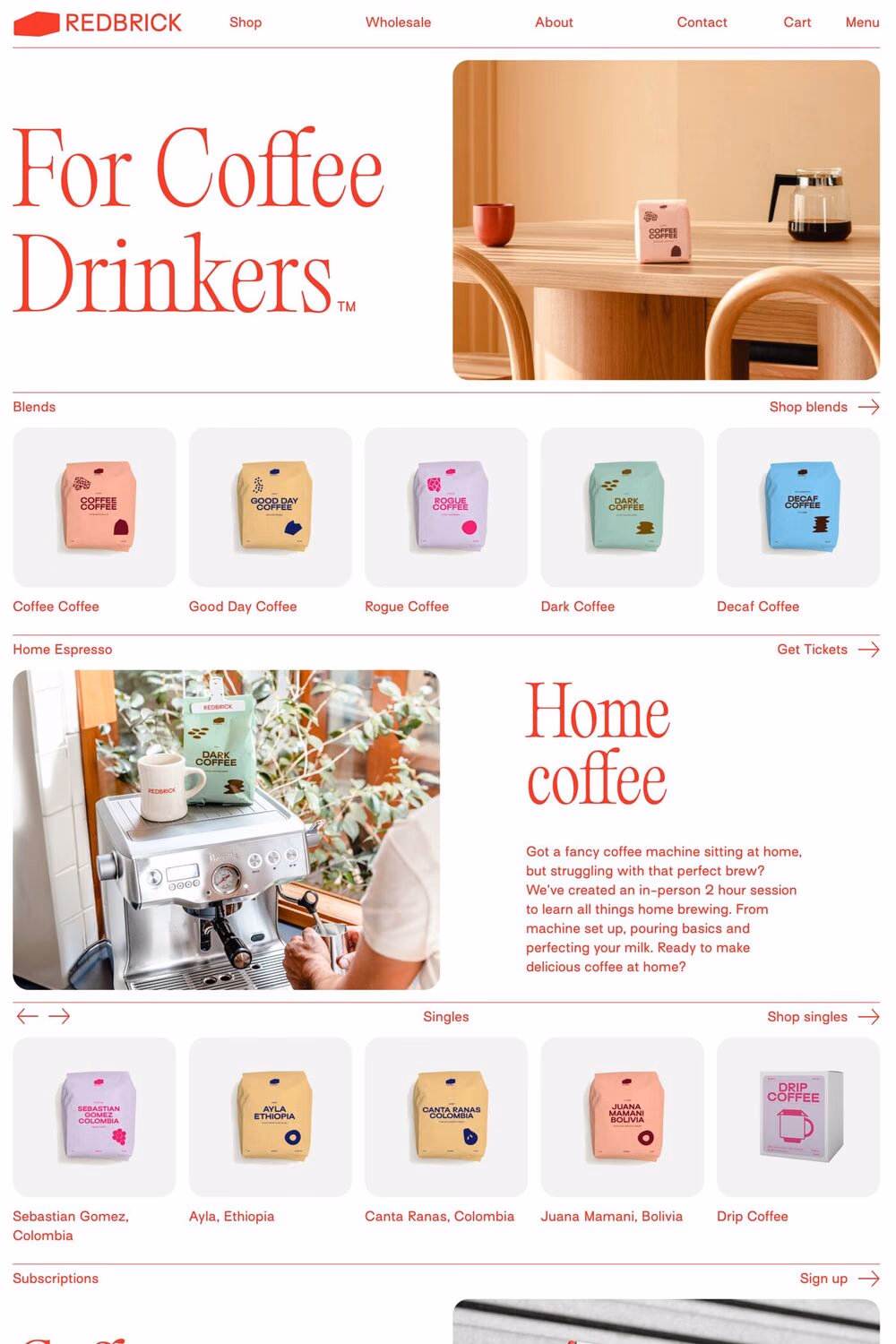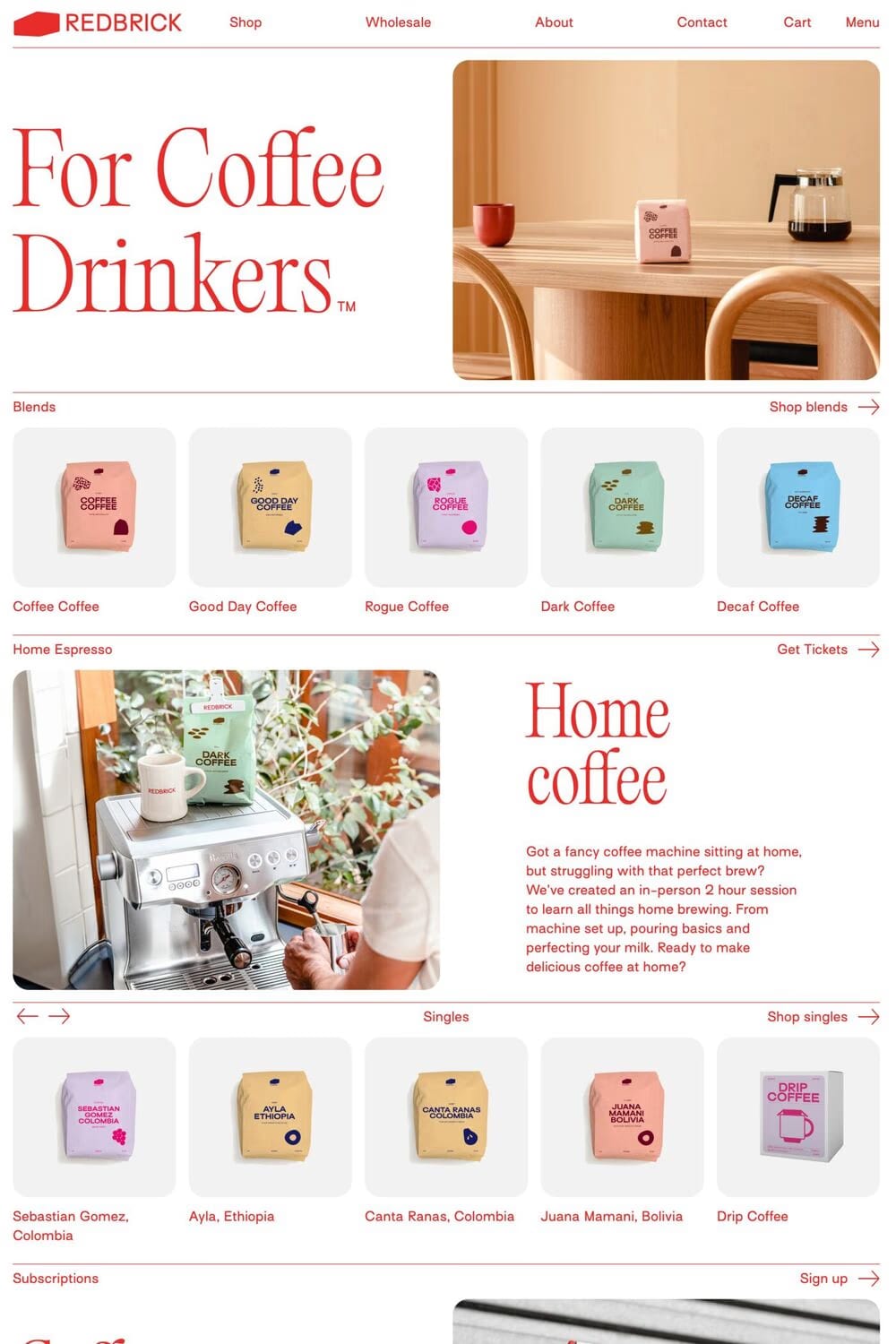
Surt is a sans-serif typeface from Blaze Type.
The Surt typeface family, inspired by Norse mythology and Scandinavian Architecture, draws a bridge between a geometric sans and a human process in the whole shape design. Surt’s Norse-like character set will allow text layouts to have this unusual corkiness which make it so particular and so comfortable to read.